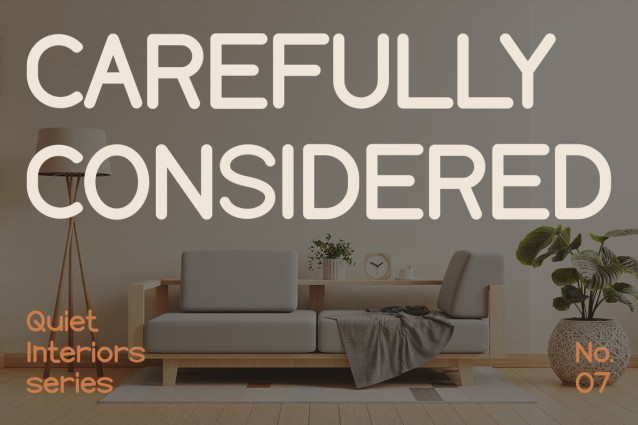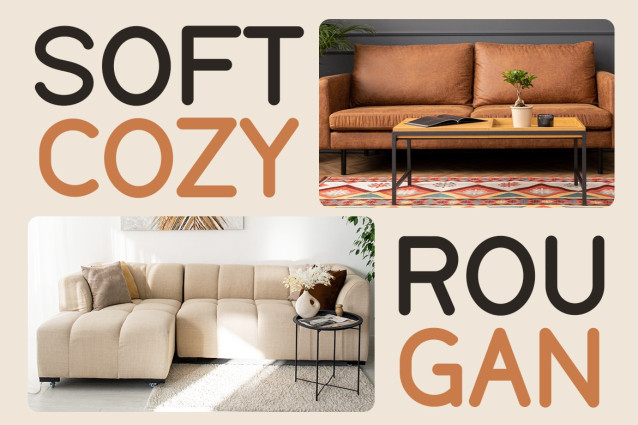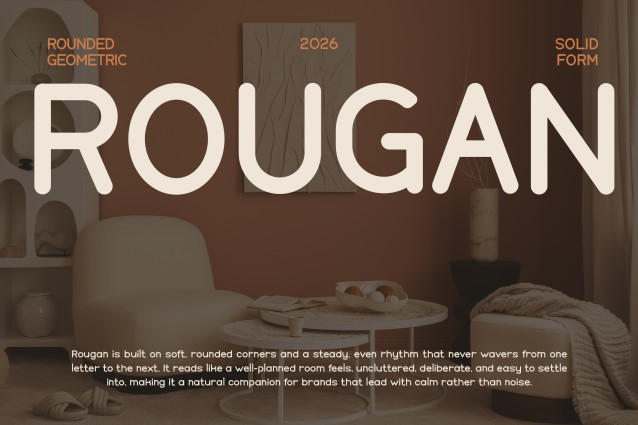
Rougan – Soft Modern Interior Display Font
Instagram Font Rougan brings a calm, contemporary feel to modern visuals through rounded letterforms, smooth curves, and balanced proportions. Unlike overly sharp geometric fonts, Rougan feels softer and more approachable, while still keeping a clean editorial presence. Moreover, its refined structure creates a relaxed visual rhythm, so every headline feels organized without looking rigid.
At the same time, the subtle curves add warmth and personality, making it a natural fit for interiors, lifestyle, and modern branding. Therefore, Rougan can turn simple words into polished visual statements with a cozy, sophisticated touch.